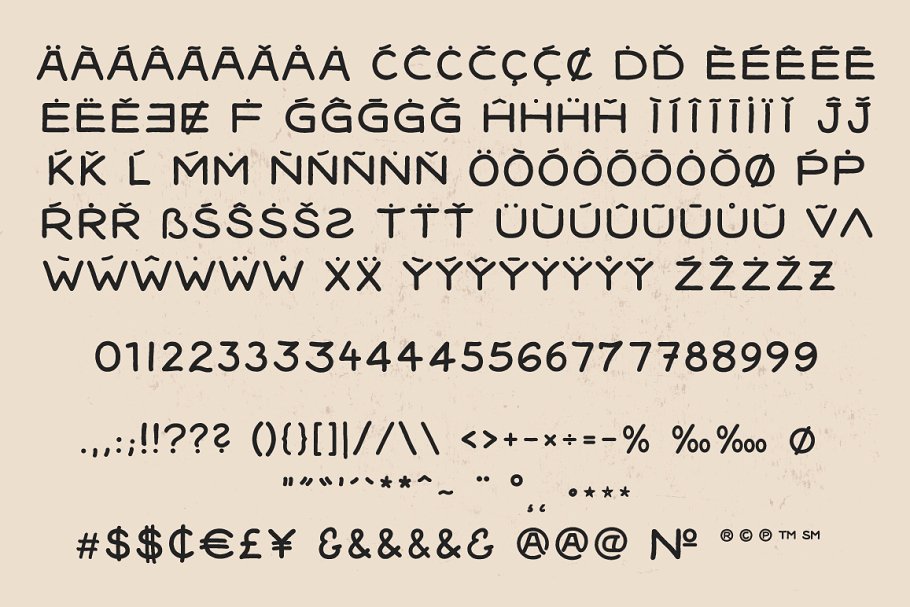
Looking for the best fonts for numbers tattoo designs? Look no further than Sailors Diary Tattoo Style Font by BAD TASTE. This hand-made sans-serif font is perfect for anyone looking for an old-school tattoo font with a real hand-written character.
With over 220 alternate letters and 180 special characters, punctuation, and their alternates, this font is incredibly versatile and perfect for banners, scrolls, posters, and other designs with a lot of text. Plus, you'll get access to bonus vector graphics in AI and EPS formats with a standard license.
Sailors Diary Tattoo Style Font was created with pencil and paper, Adobe Illustrator, and Fontself, a helpful tool for font creation. It's available in OTF format and works on both Mac and PC.
So why choose Sailors Diary Tattoo Style Font for your next tattoo design or graphic project? Because it's not just a font – it's a work of art. Each letter has been lovingly hand-drawn to capture the essence of old-school tattoo art. And with so many alternate glyphs and special characters, you'll be able to create truly unique designs that stand out from the crowd.